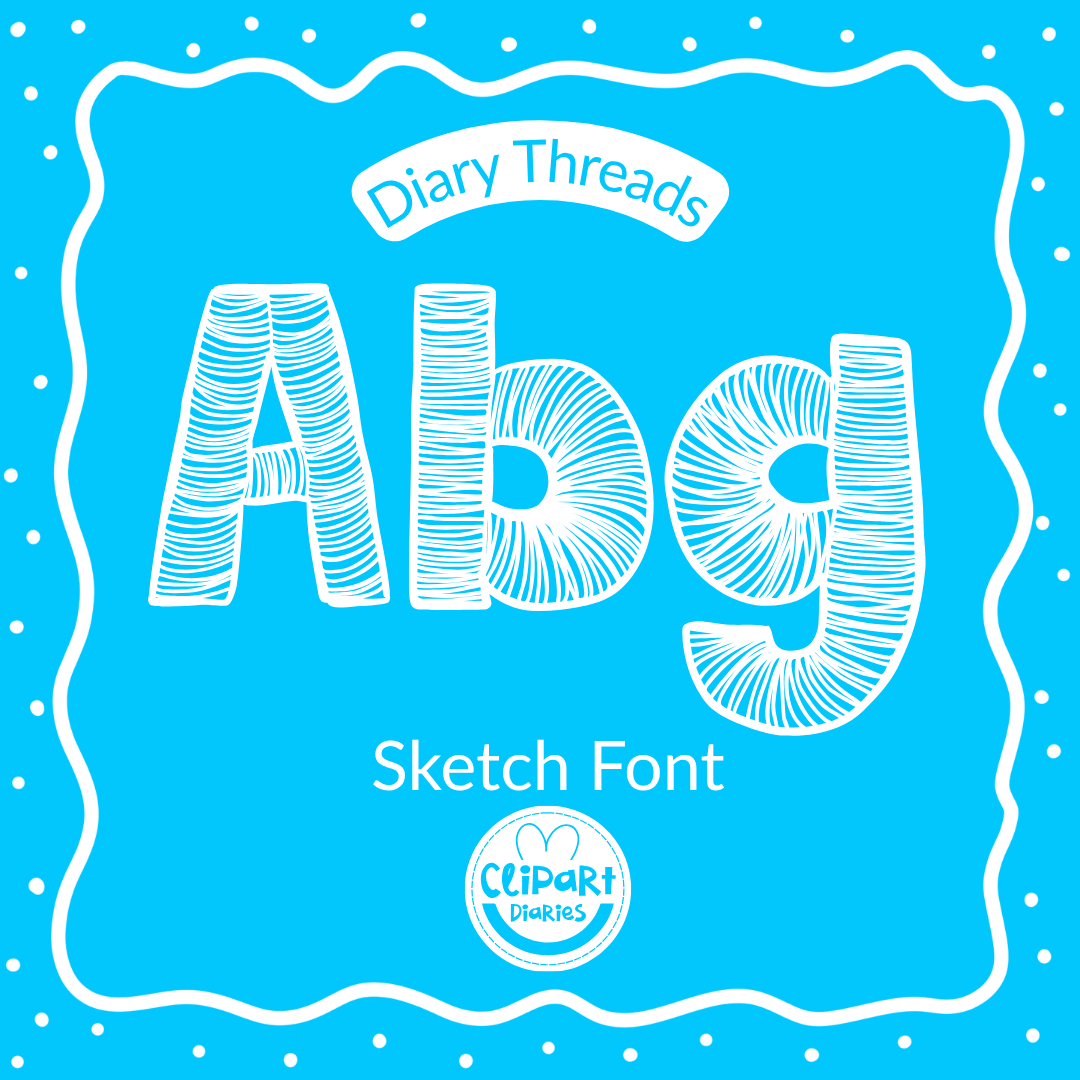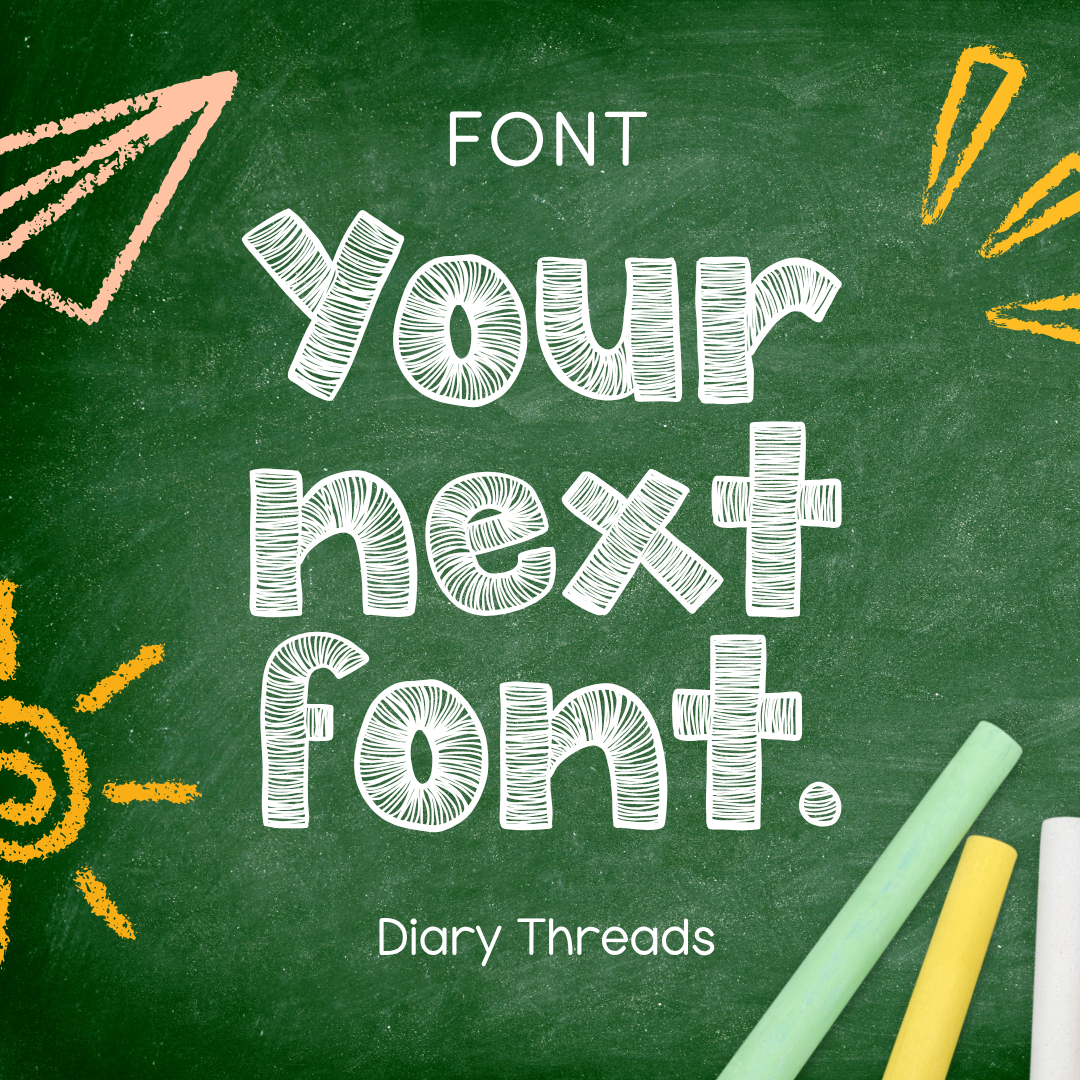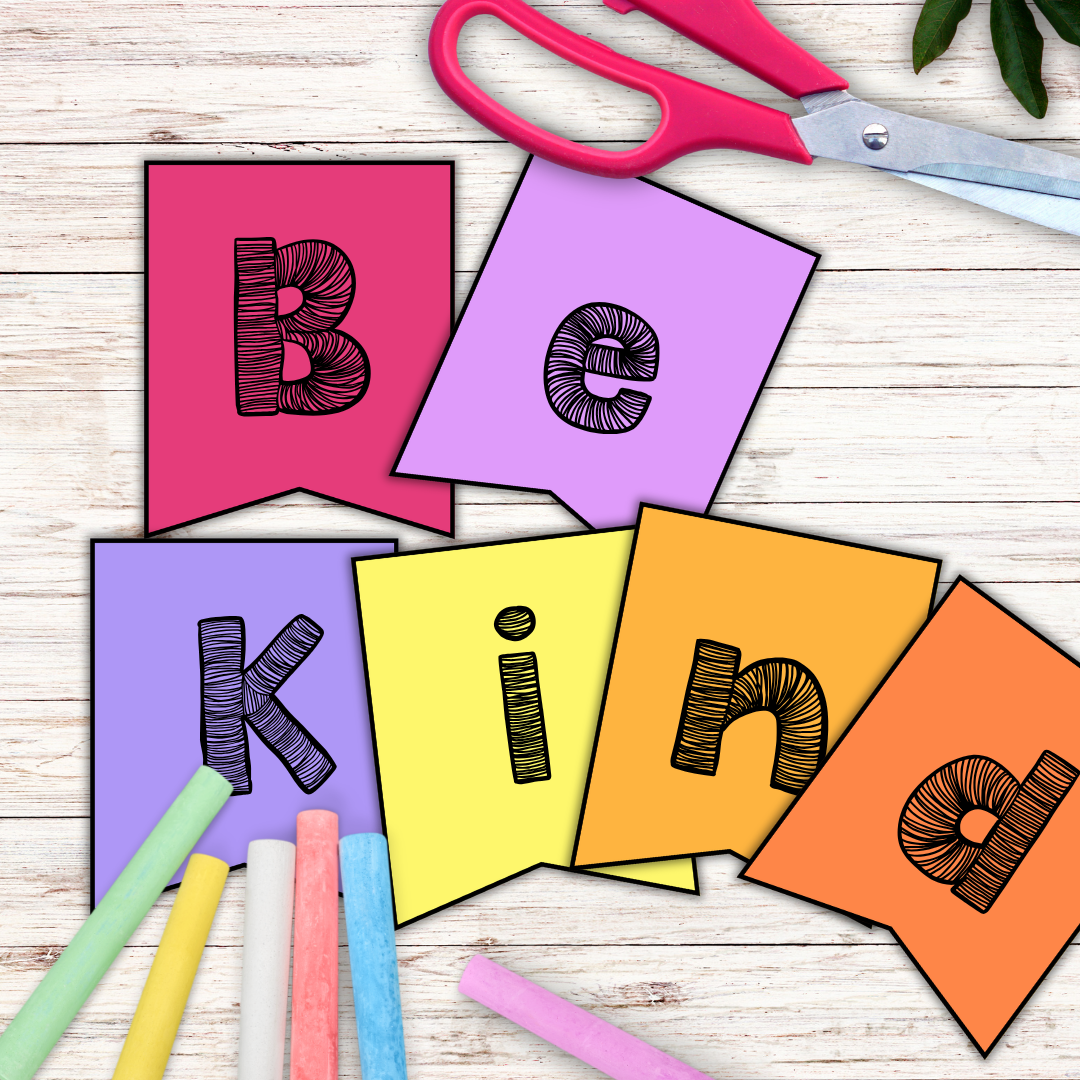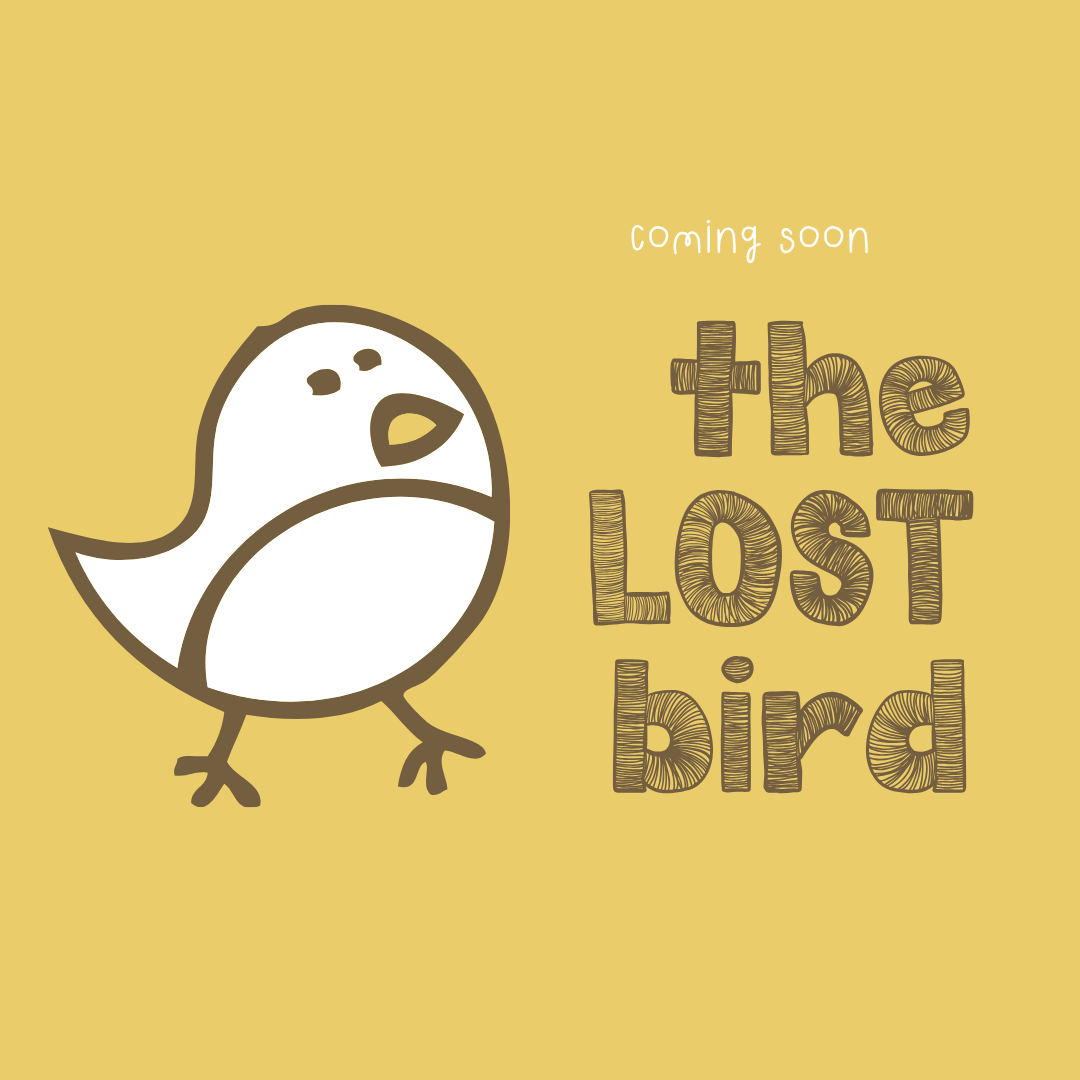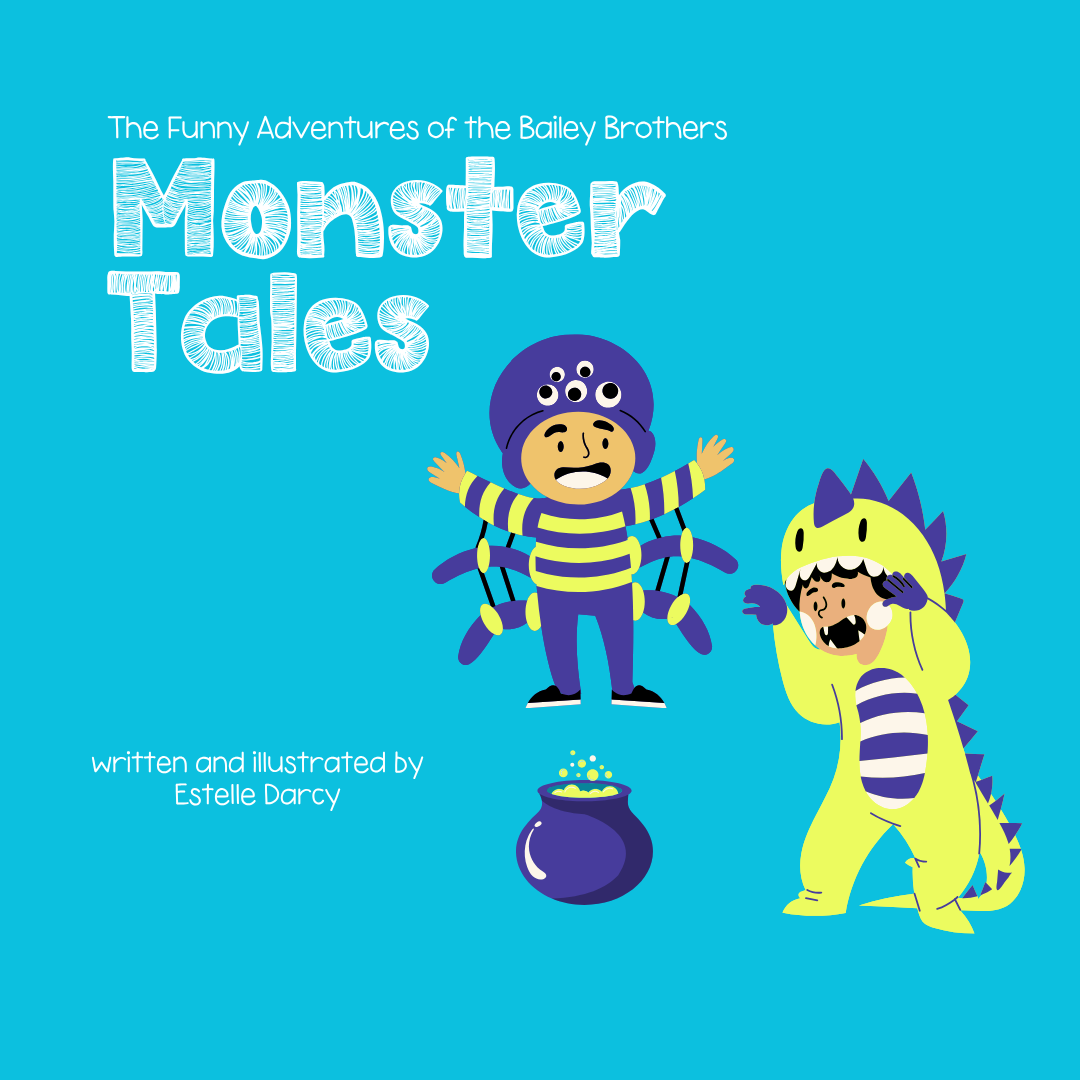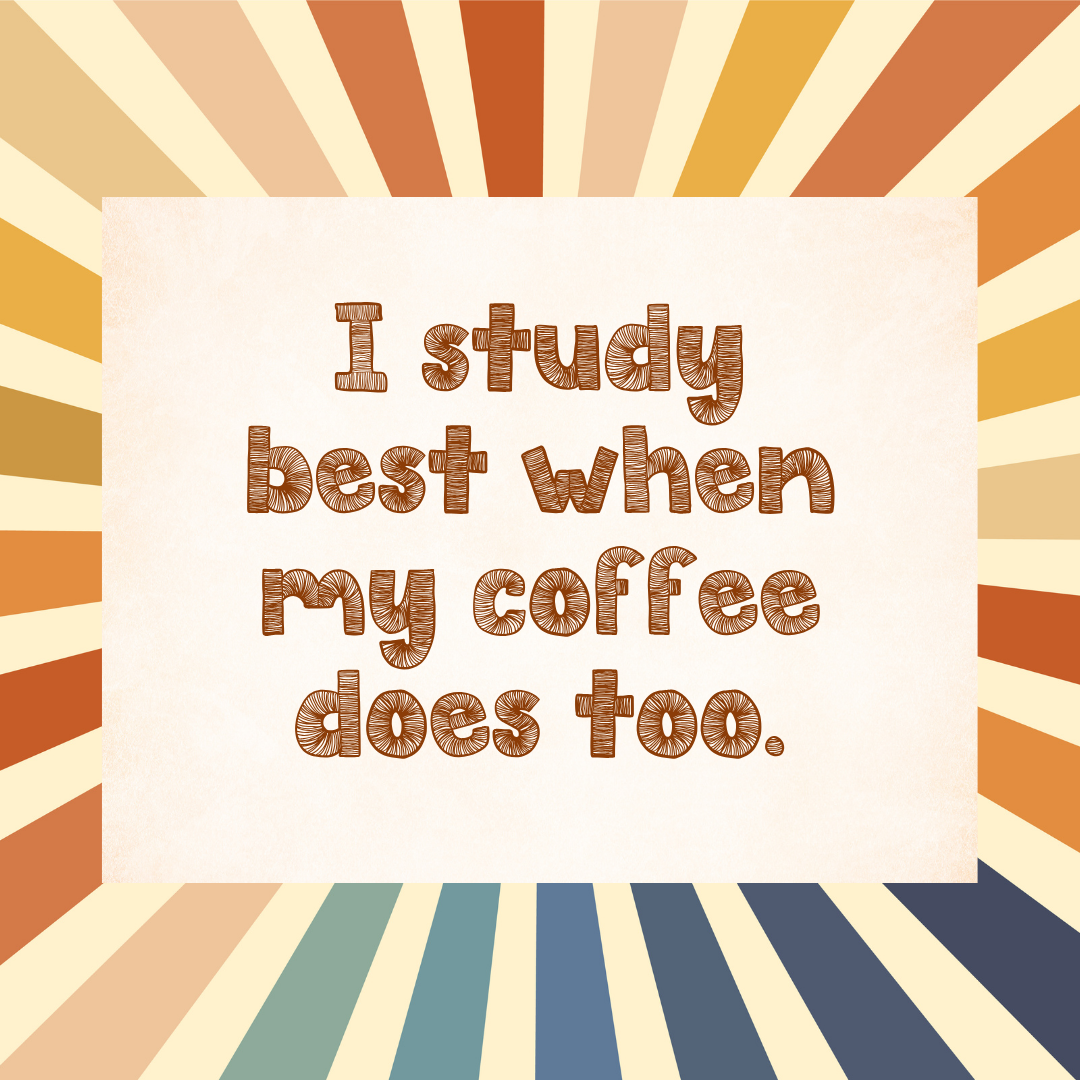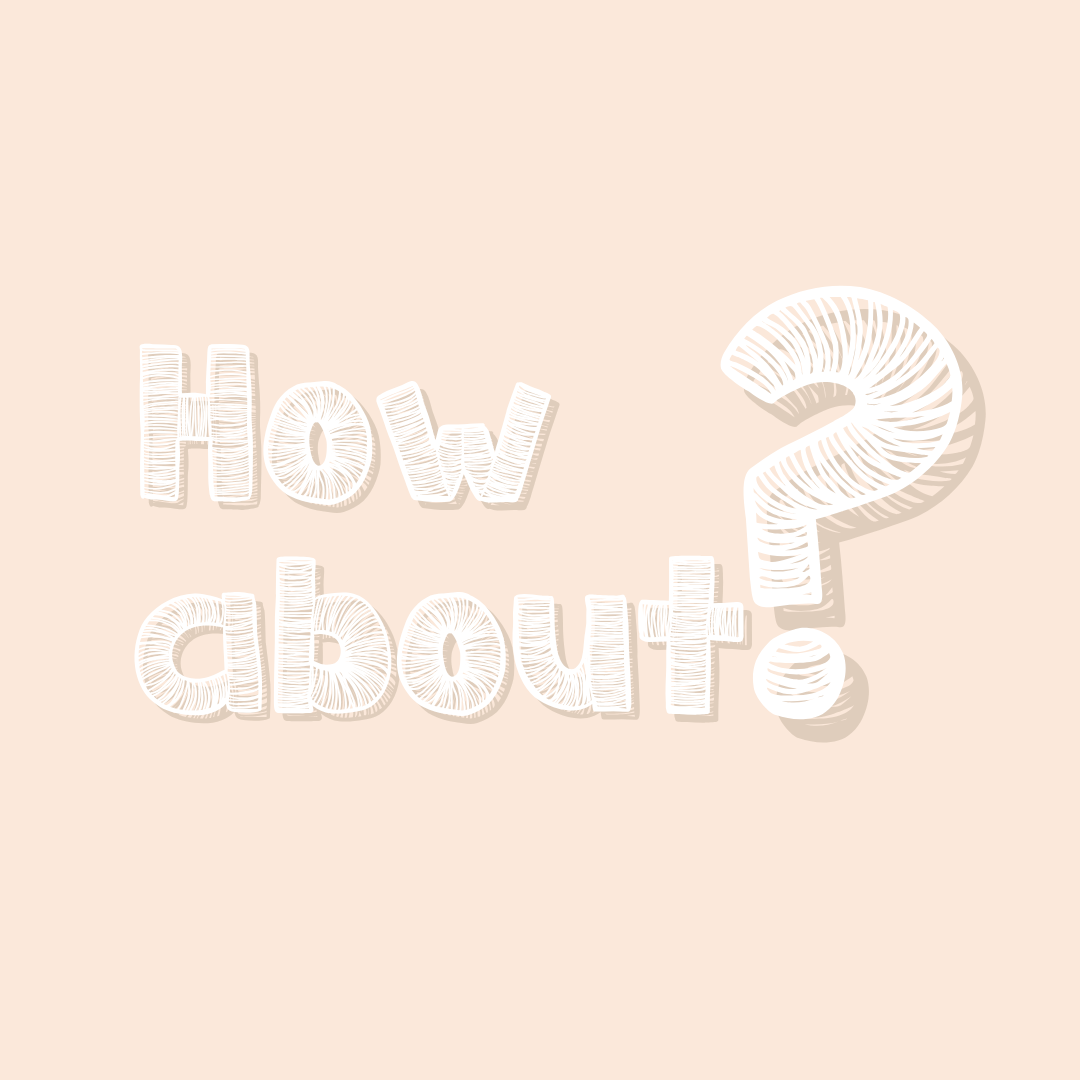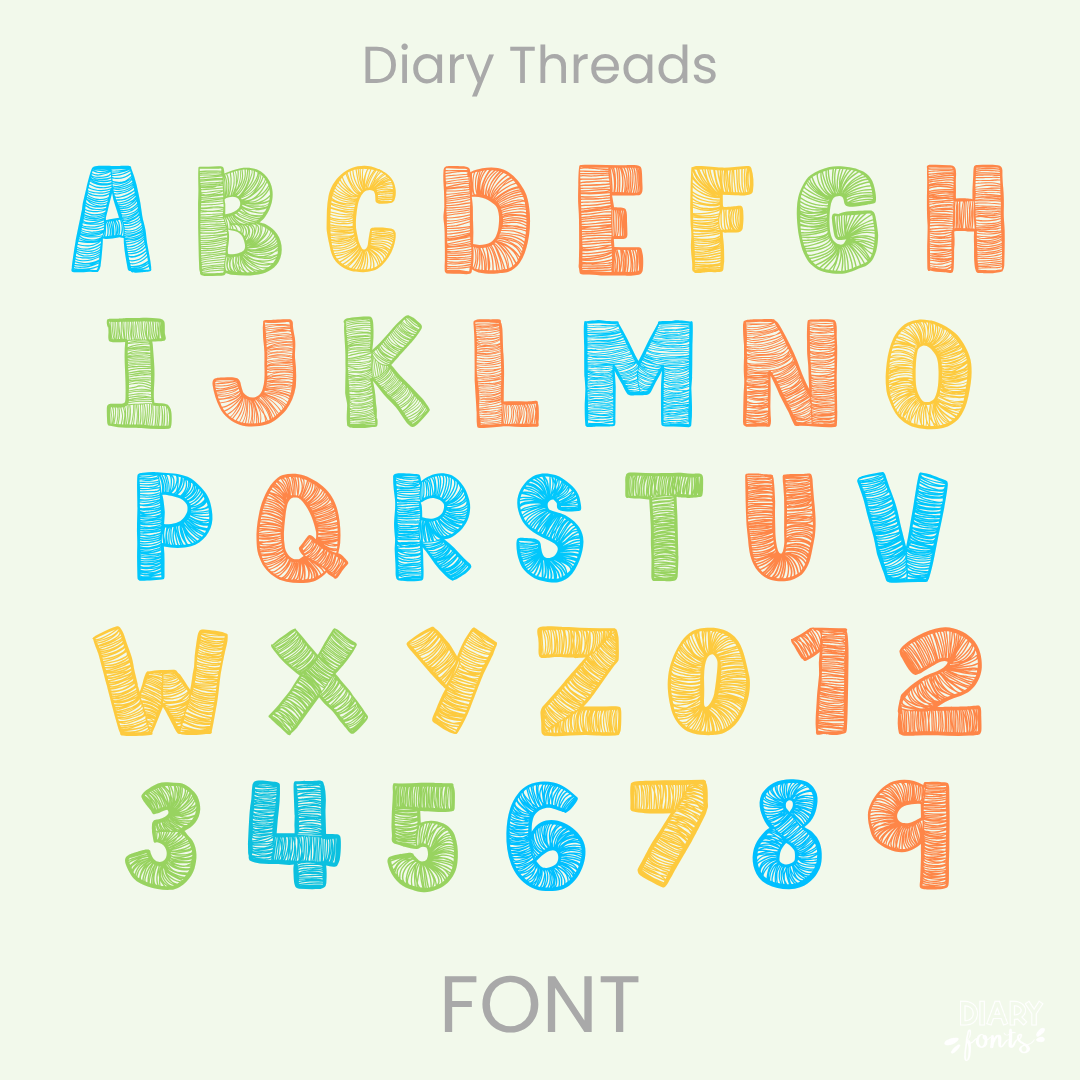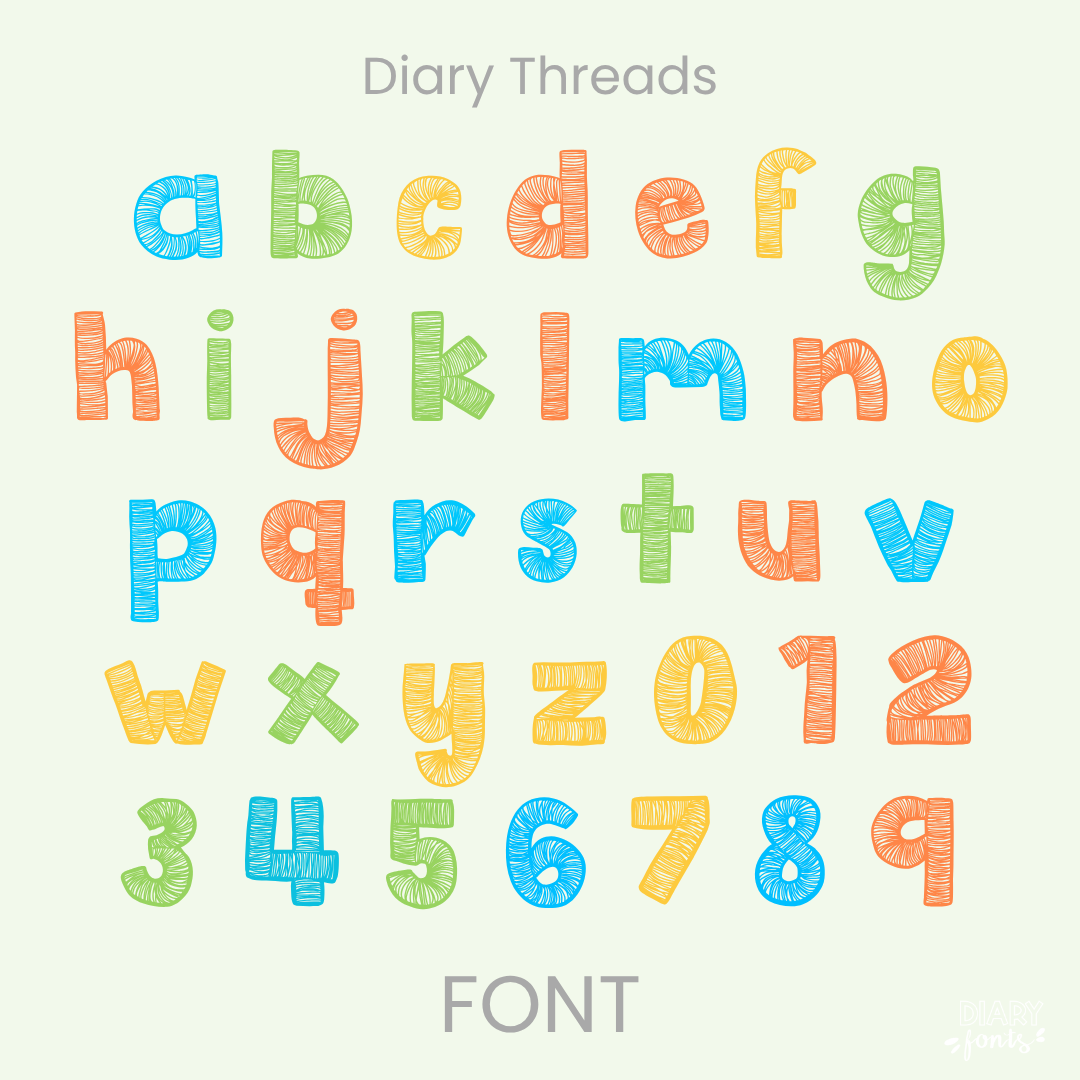
Diary Threads is that ultra-bold sketch font and textured embroidery-style teacher font you need to bring a cozy, hand-drawn string texture to your daily classroom resources and chalkboard presentation slides!
If you’ve been searching for a unique decorative font that packs a major punch while keeping your resource layouts looking incredibly sweet and structured, Diary Threads is about to become your new absolute favorite. This playful display font features thick, heavy-weighted letterforms completely filled with an intricate, hand-scribbled thread texture that mimics wound embroidery string. Standing tall and confident straight along the baseline, its chunky sketched design cuts right through the background noise, giving you an exceptionally clear and legible worksheet typography choice for your sweet students.
It is an absolute dream choice for designing standout bulletin boards, creative morning meeting slides, custom subject cover pages, and adorable primary classroom labels where you want a cozy, crafty vibe. Inside the download, you’ll get a full set of thick textured uppercase and lowercase print letters, matching thread-filled numbers, and multi-accent markings for complete multilingual support. It drops right into Canva, MS Office, or Adobe on your desktop, and pairs beautifully with Procreate and GoodNotes on your iPad. Whether you’re prepping daily activities for your own sweet classroom or designing a gorgeous new commercial-use product line for your online teacher shop, this textured display heading font adds a touch of confident, friendly style to your creative toolkit.